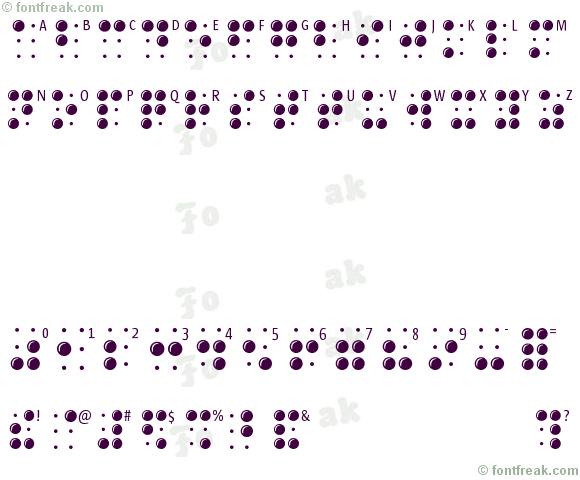
BrailleLatin
About BrailleLatin
BrailleLatin by Manfred Klein is a unique display font that combines the tactile essence of Braille with a modern twist. This font, categorized as a decorative typeface, features a distinctive visual style that incorporates dot-based characters reminiscent of traditional Braille, making it both innovative and functional. The stroke weight is uniform, providing a clean and cohesive appearance, while the spacing between characters is thoughtfully designed to enhance readability and maintain visual balance.
The BrailleLatin font is particularly well-suited for a variety of creative projects. It shines in contexts such as educational materials that aim to promote inclusivity, signage in accessible environments, and art installations that encourage tactile exploration. Additionally, it can be effectively used in branding for organizations focused on disability advocacy, making a bold statement while remaining sensitive to its purpose. Graphic designers and content creators will find this font an excellent choice for projects that require a blend of creativity and accessibility.
The target audience for BrailleLatin includes graphic designers seeking to add a unique touch to their work, small business owners focused on creating an inclusive brand identity, and educators looking to develop engaging materials for students. Its versatility allows it to stand out in various applications, from social media graphics to printed brochures.
What makes BrailleLatin truly special is its ability to bridge visual and tactile communication. This font not only serves aesthetic purposes but also champions inclusivity, making it a valuable addition to any designer's toolkit. For those interested in exploring its unique characteristics, the BrailleLatin font free download offers an opportunity to experiment with this innovative typeface.